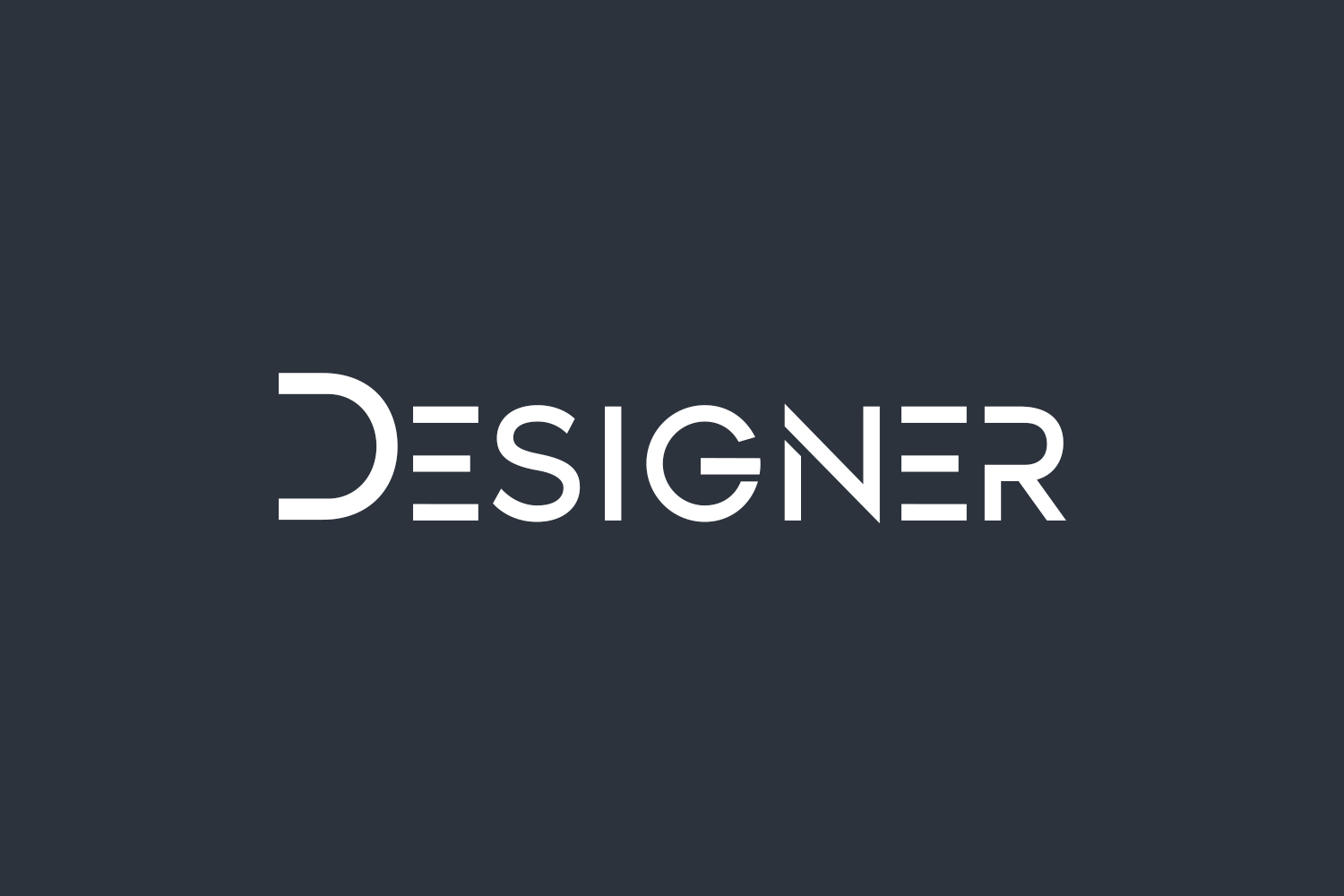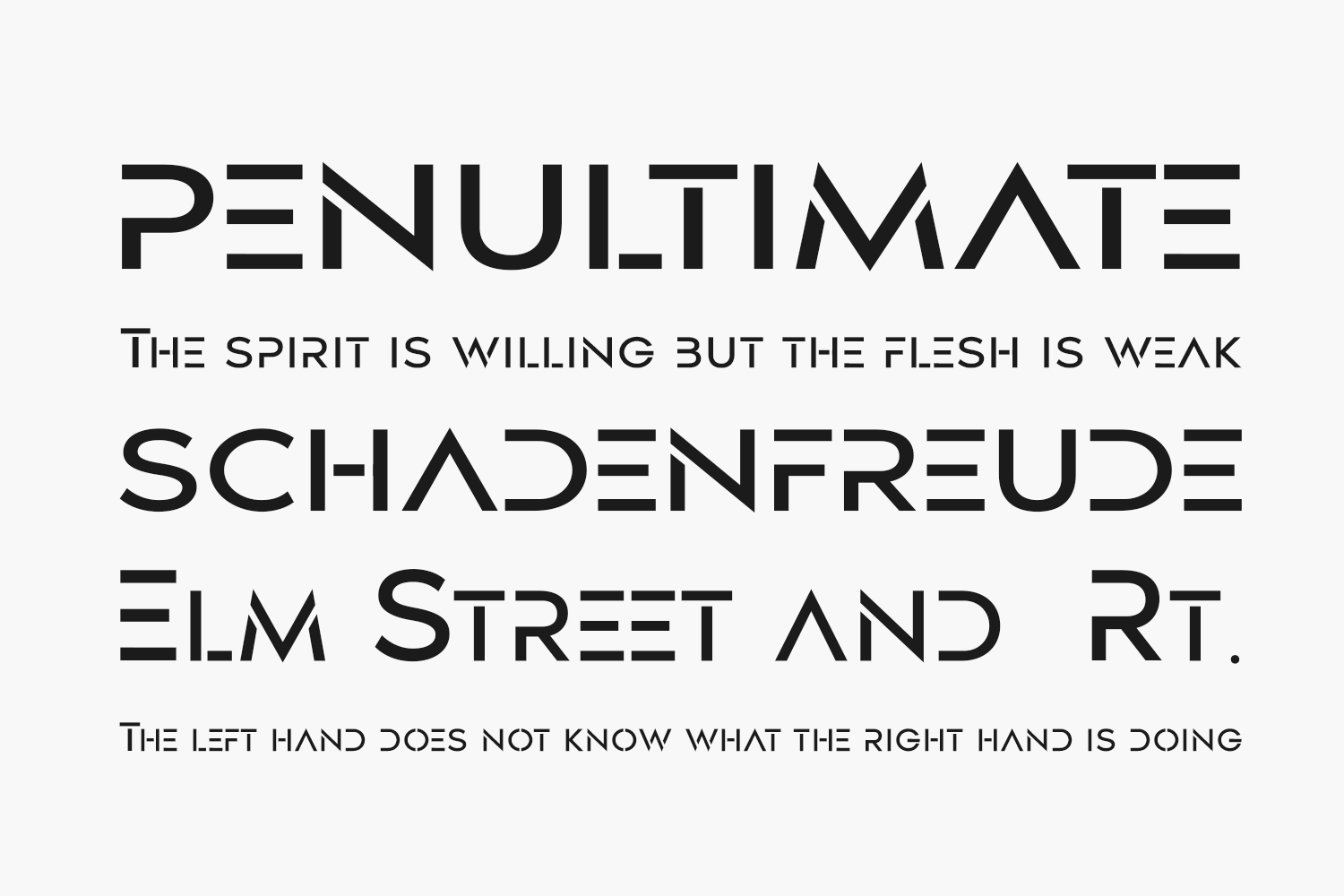
Explore the cutting-edge style of Designer Free Font with the latest letter designs. Ideal for wall displays, wedding invitations, social media posts, logos, advertisements, product packaging, product designs, labels, photography, watermarks, invitations, stationery, and more. Unleash the potential of your designs because the Designer adds a contemporary flair. Download the font for free if you need it for personal use or purchase the full version for commercial use.